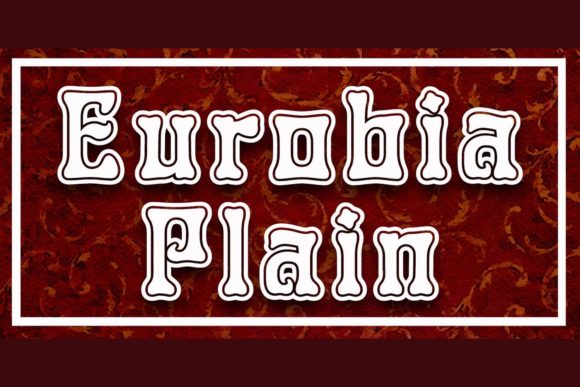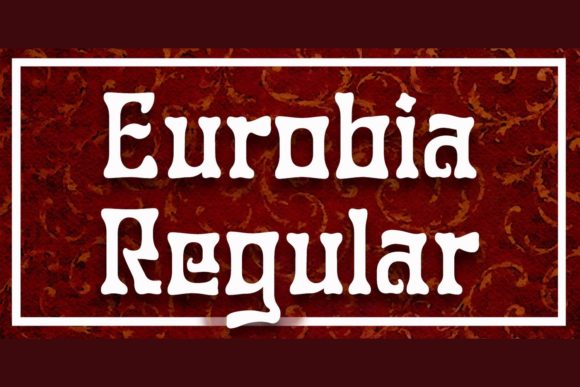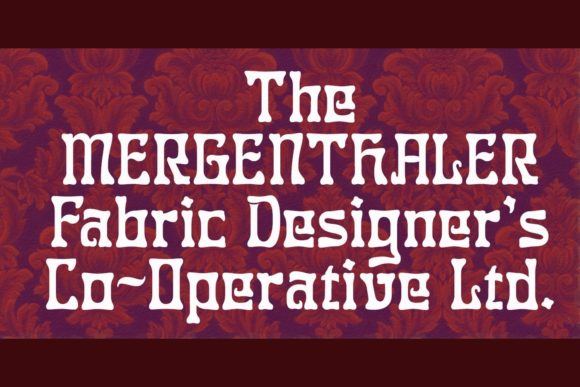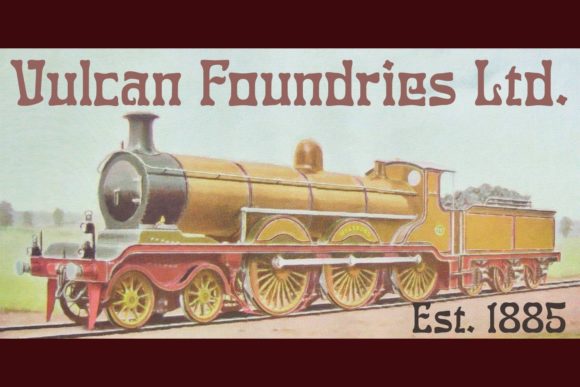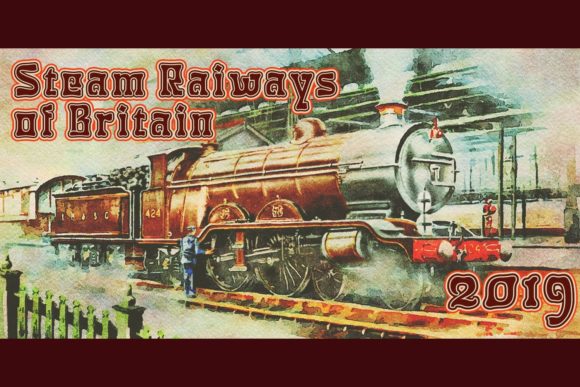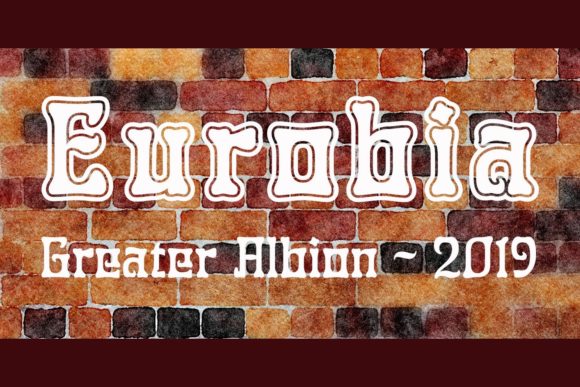
Introducing Eurobia Font: The Cute and Friendly Display Font You Need!
Are you tired of using the same old fonts in your designs? Do you want to add a touch of youthful energy and playfulness to your creations? Look no further than Eurobia Font! This adorable display font is sure to bring a smile to your face and make your designs come alive.
What is Eurobia Font?
Eurobia Font is a charming and friendly display font that’s perfect for designers and crafters who want to add a personal touch to their work. With its chunky lettering and incredibly youthful feel, Eurobia Font is sure to capture the attention of your audience and leave a lasting impression.
Key Features of Eurobia Font
- Cute and Friendly Design: Eurobia Font boasts a delightful design that’s both cute and friendly, making it perfect for designs that require a playful touch.
- Chunky Lettering: The font features chunky lettering that’s sure to make your designs stand out from the crowd.
- Youthful Feel: Eurobia Font has an incredibly youthful feel that’s perfect for designs that require a fresh and energetic vibe.
- Display Font: Eurobia Font is a display font, making it perfect for headings, titles, and other display purposes.
Why Use Eurobia Font?
So, why should you use Eurobia Font in your designs? Here are just a few reasons:
- Adds a Personal Touch: Eurobia Font adds a personal touch to your designs, making them more relatable and engaging.
- Perfect for Kids and Family Designs: The font’s youthful feel makes it perfect for designs aimed at kids and families.
- Great for Social Media: Eurobia Font is perfect for social media graphics, where you want to grab the attention of your audience and make your content stand out.
- Easy to Read: Despite its chunky design, Eurobia Font is easy to read, making it perfect for designs that require a clear and concise message.
How to Use Eurobia Font?
Using Eurobia Font is easy! Here are a few tips to get you started:
- Pair it with Other Fonts: Pair Eurobia Font with other fonts to create a unique and visually appealing design.
- Use it for Headings and Titles: Use Eurobia Font for headings and titles to add a touch of personality to your designs.
- Experiment with Colors: Experiment with different colors to find the perfect combination that matches your brand’s personality.
Who Can Benefit from Eurobia Font?
Eurobia Font is perfect for a variety of designers and crafters, including:
- Graphic Designers: Graphic designers can use Eurobia Font to add a personal touch to their designs and make them more engaging.
- Social Media Managers: Social media managers can use Eurobia Font to create visually appealing graphics that grab the attention of their audience.
- Crafters: Crafters can use Eurobia Font to add a touch of personality to their DIY projects and make them more unique.
- Small Business Owners: Small business owners can use Eurobia Font to create branded materials that reflect their company’s personality.
In conclusion, Eurobia Font is a cute and friendly display font that’s perfect for designers and crafters who want to add a touch of youthful energy to their designs. With its chunky lettering and incredibly youthful feel, Eurobia Font is sure to make your designs come alive! So, what are you waiting for? Get inspired by Eurobia Font and take your designs to the next level!